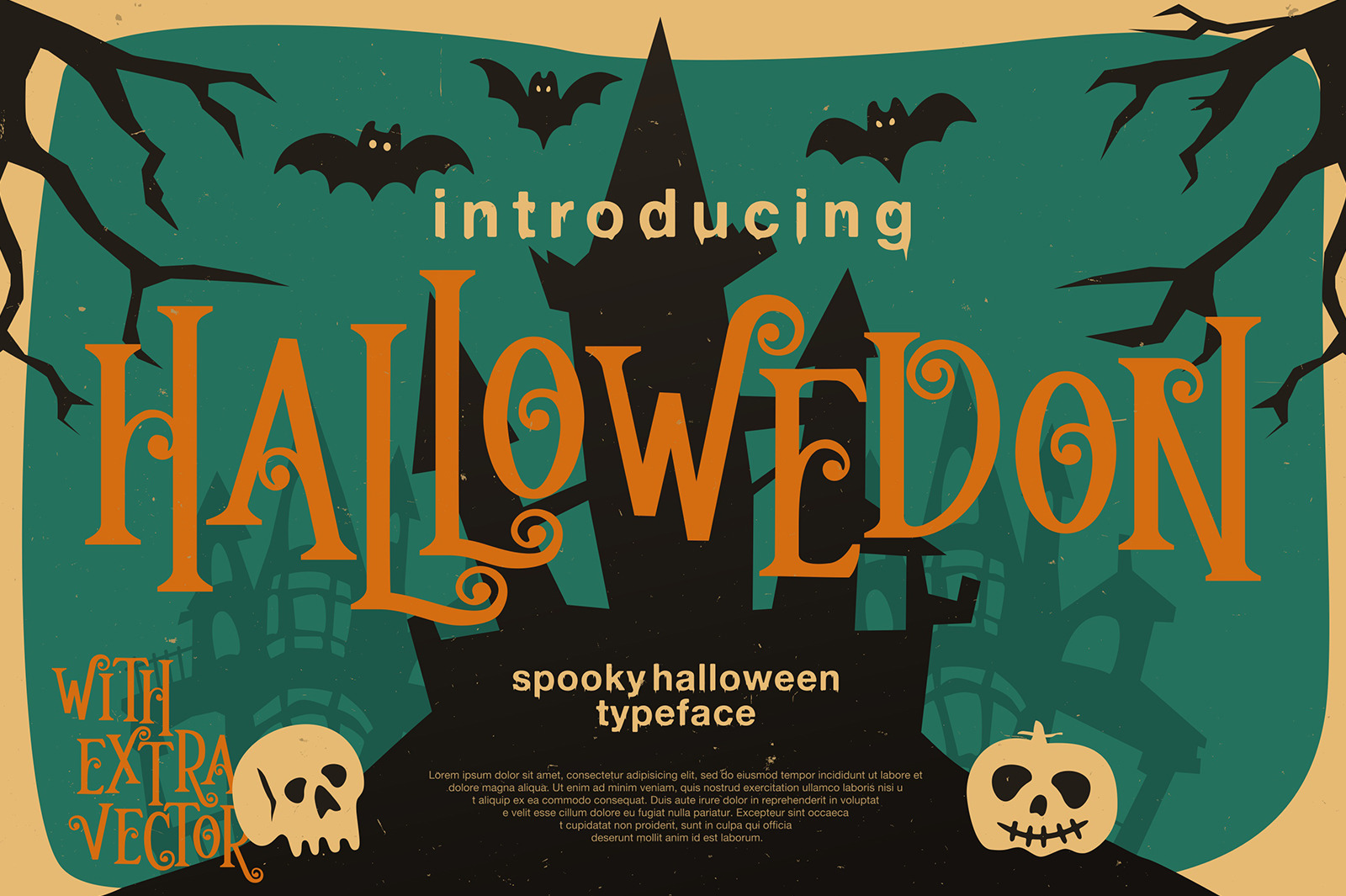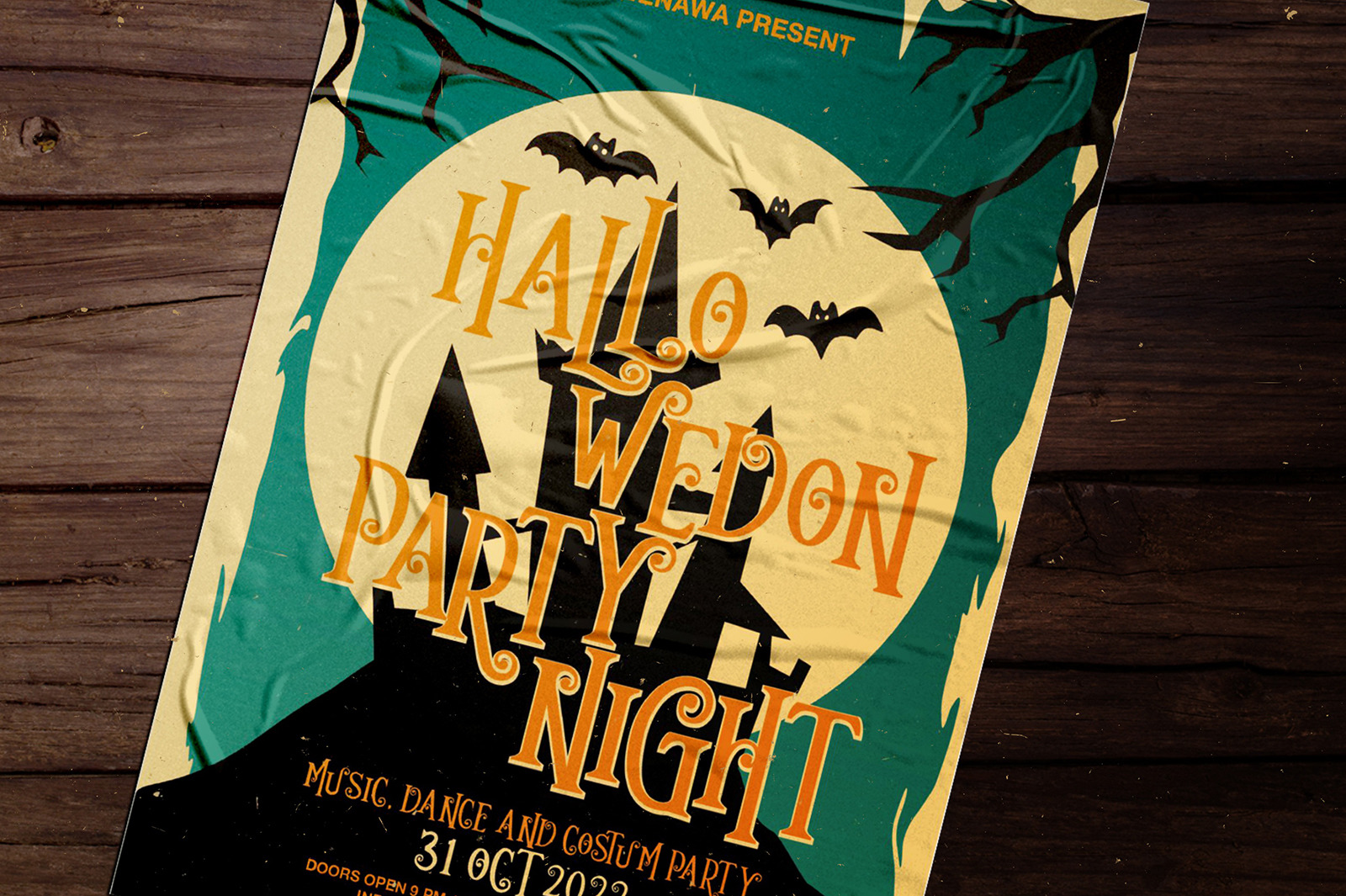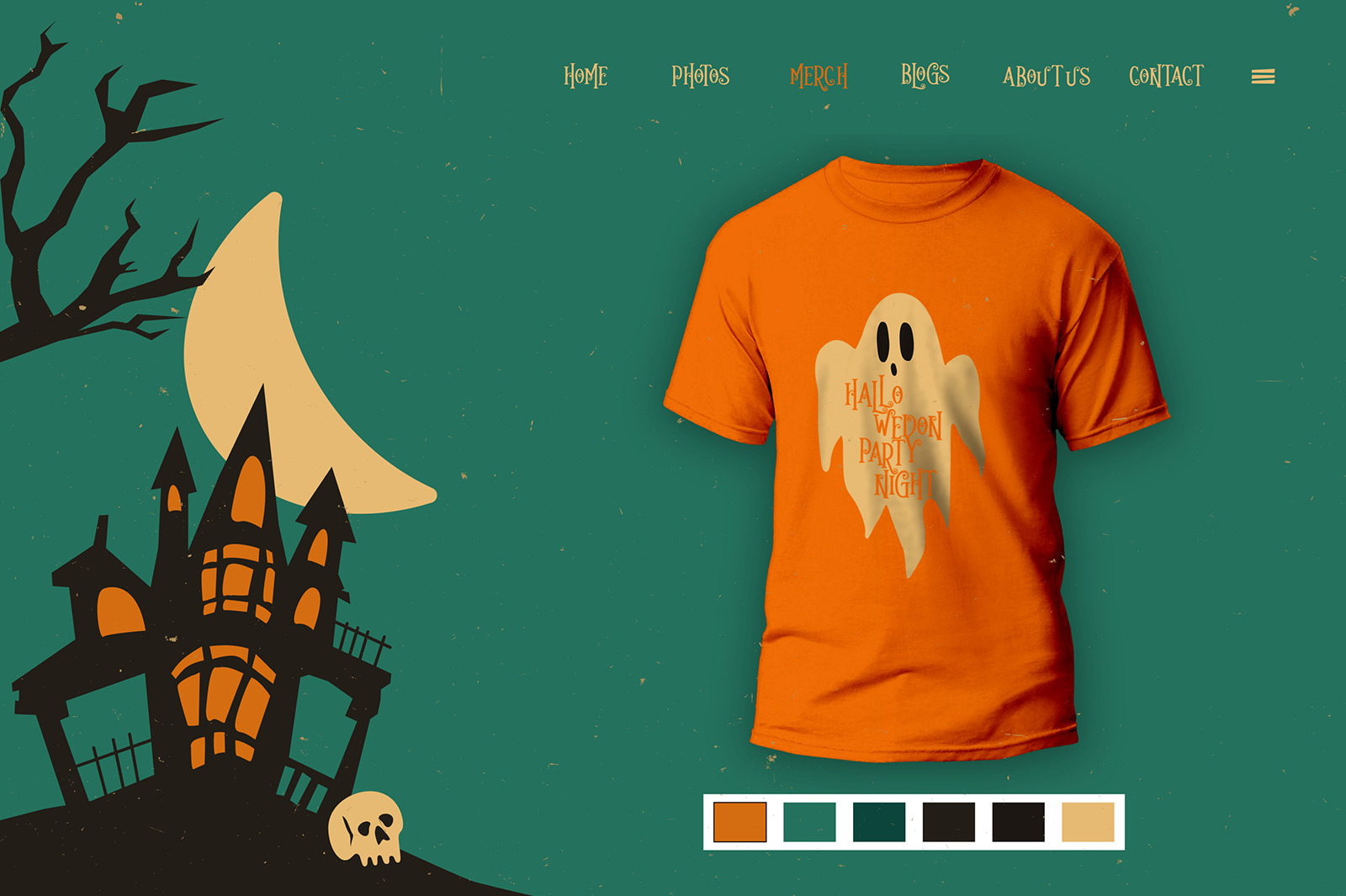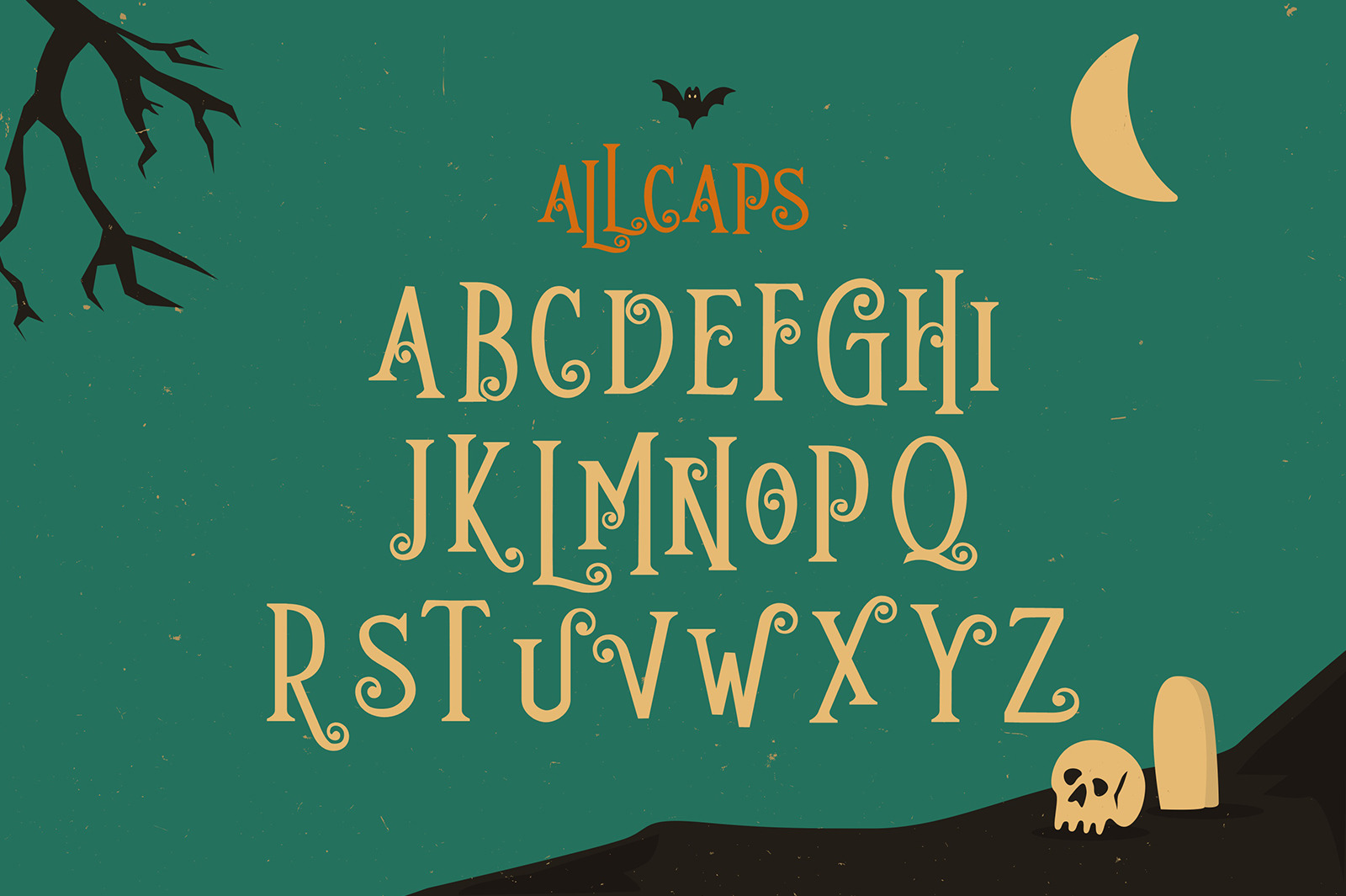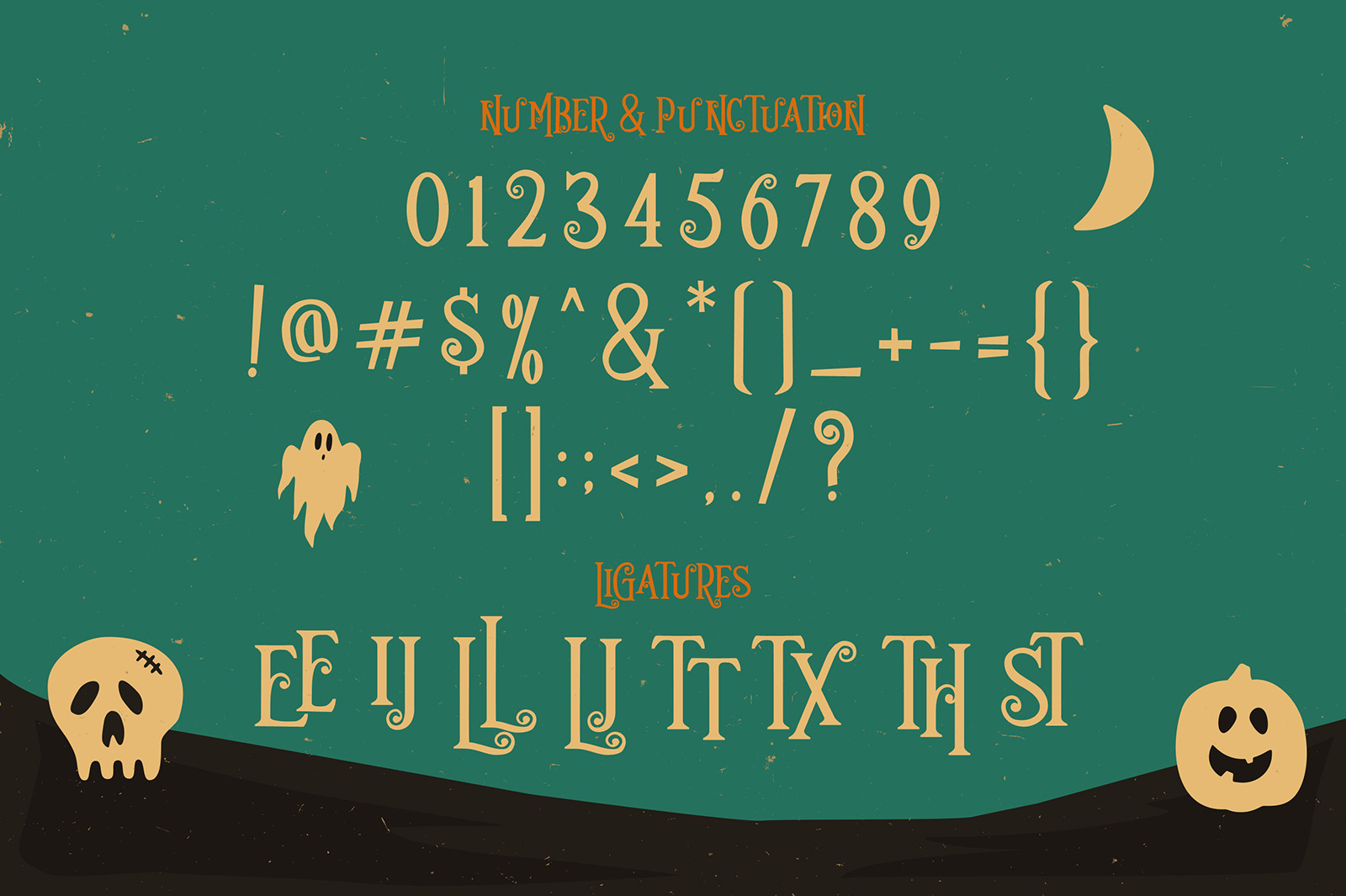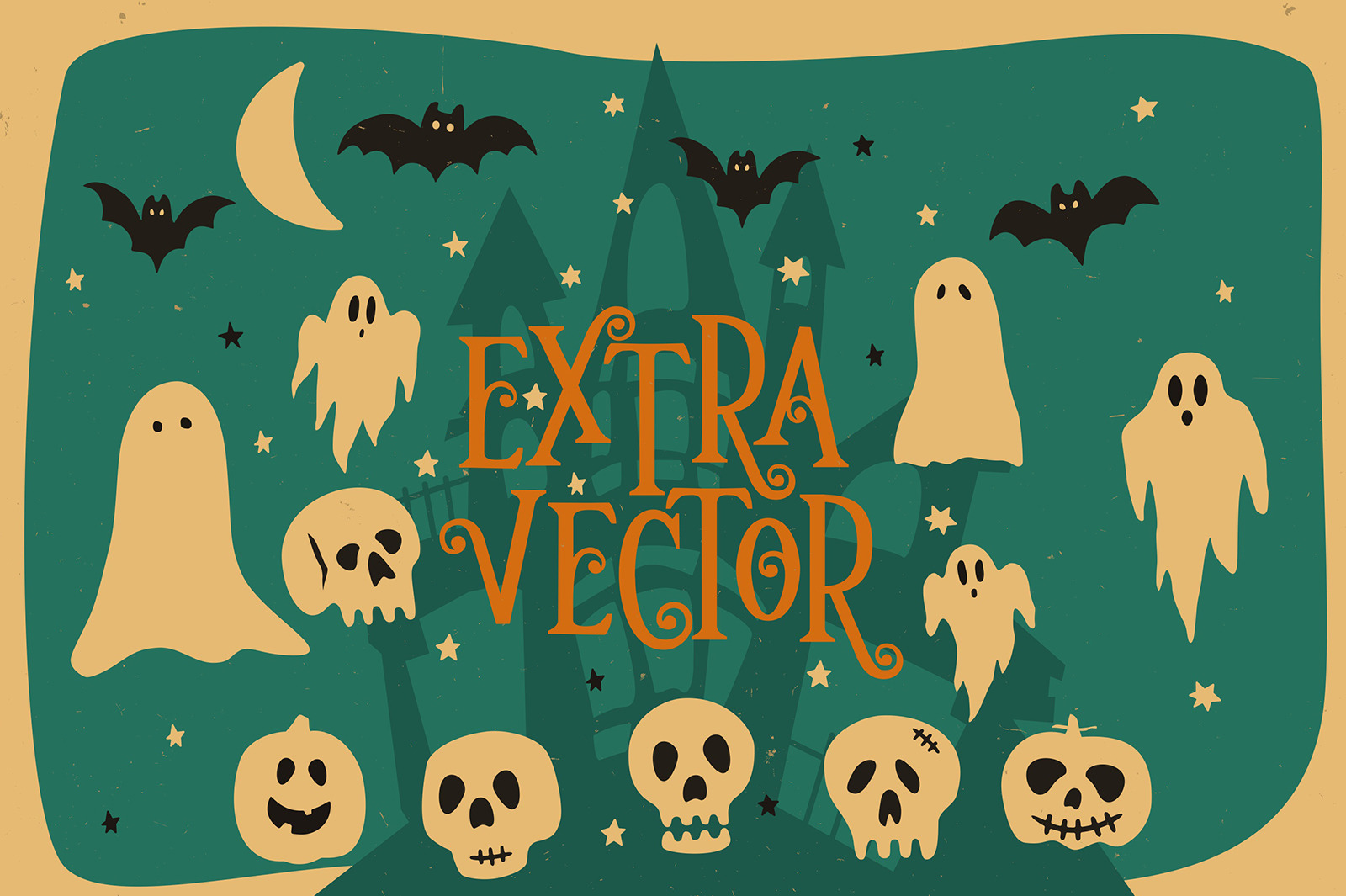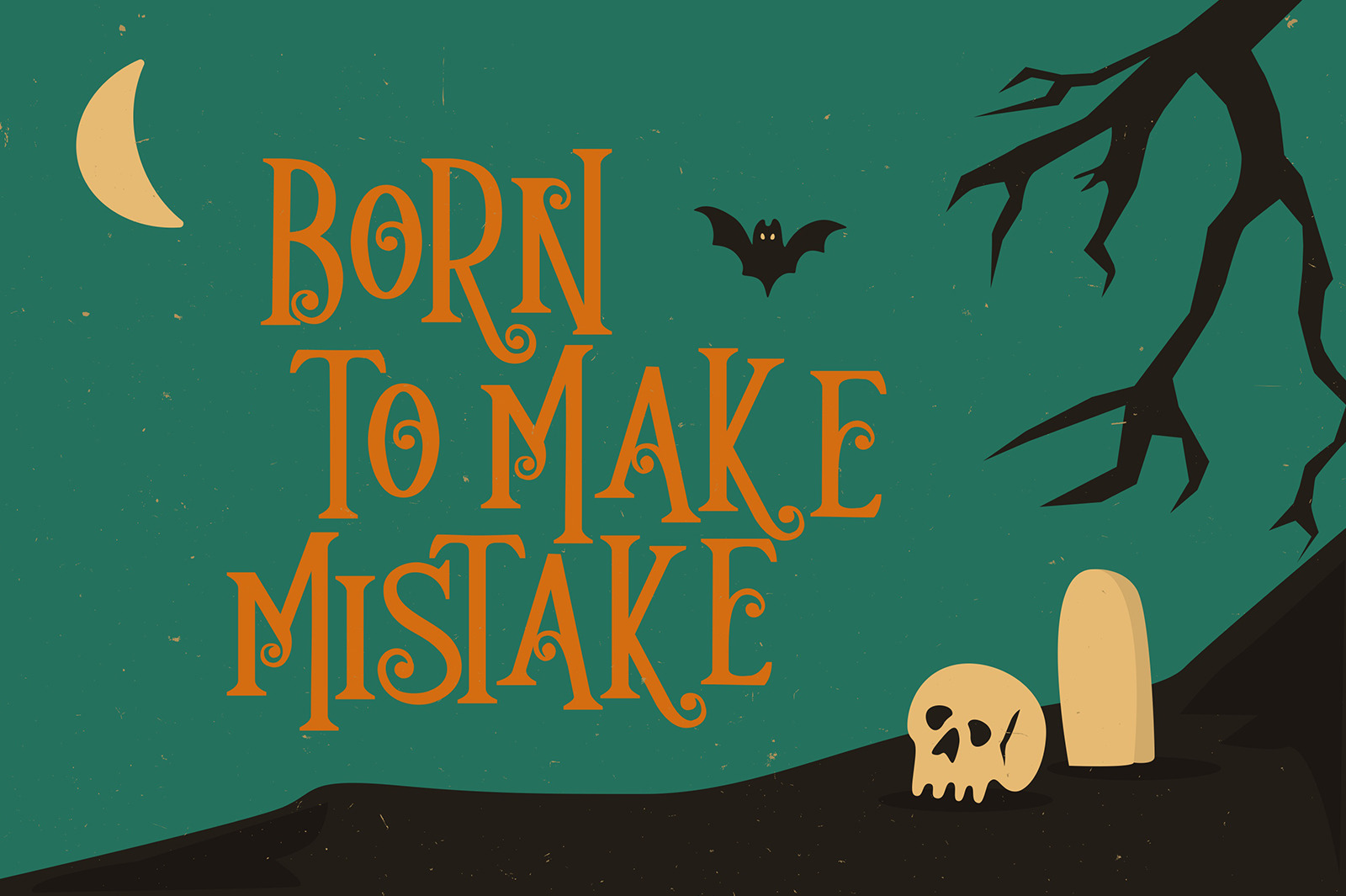
Hallowedon - spooky halloween typeface
Hallowedon is an all-caps versatile display font inspired by halloween event which can be used for poster, book and CD cover. The irregular height of the font clearly represents the feeling of hand-drawn. You can use it for your next handcrafted projects: poster, flyer, banner, illustration, cover, etc. Hallowedon font is also perfect for Halloween illustrations.